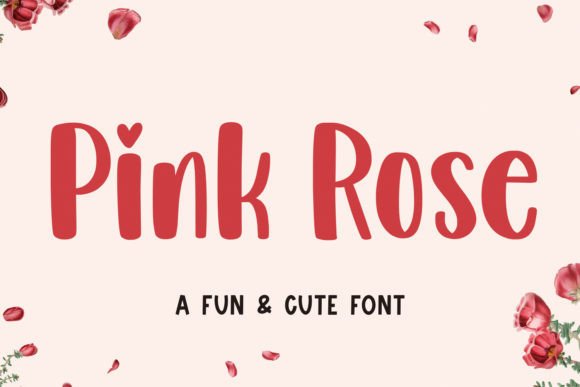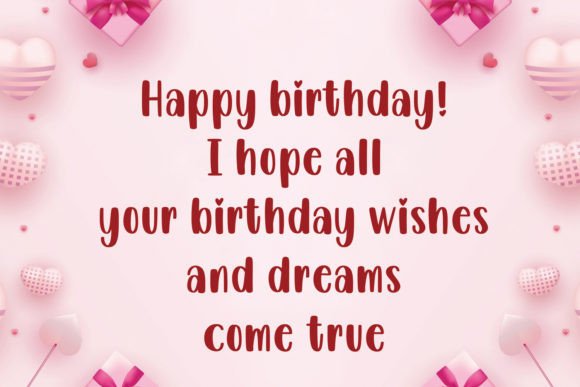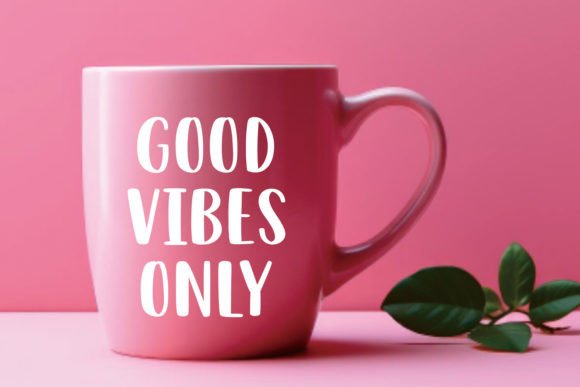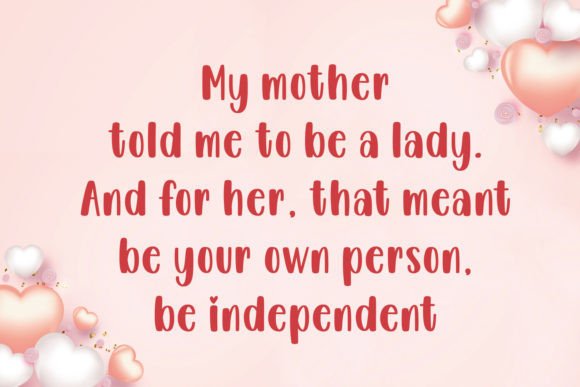
Pink Rose Font: A Cute Display Font for Cricut & Crafting!
About the Pink Rose Font
From logos to headlines, the Pink Rose Font is the perfect choice for making a lasting impression. Pink Rose is a fun and cute display font. No matter the topic, this font will be an incredible asset to your fonts’ library, as it has the potential to elevate any creation.
Pink Rose’s playful charm makes it ideal for headlines, short slogans, and branding elements where a touch of whimsy is desired. It works exceptionally well in packaging for children’s products, playful apparel brands, or invitations to lighthearted events. However, its decorative nature makes it unsuitable for body text or UI elements where readability is paramount. Avoid using it in long paragraphs or for on-screen text.
This font pairs well with clean sans-serif fonts like Open Sans for a balanced contrast of playful and professional. For a more sophisticated feel, consider pairing it with a classic serif such as Garamond or a slightly more modern geometric sans-serif like Montserrat.
Pink Rose’s core personality is undeniably cheerful and friendly, yet sophisticated enough to avoid appearing childish. Its delicate curves and slightly condensed letterforms create a balance of fun and elegance.